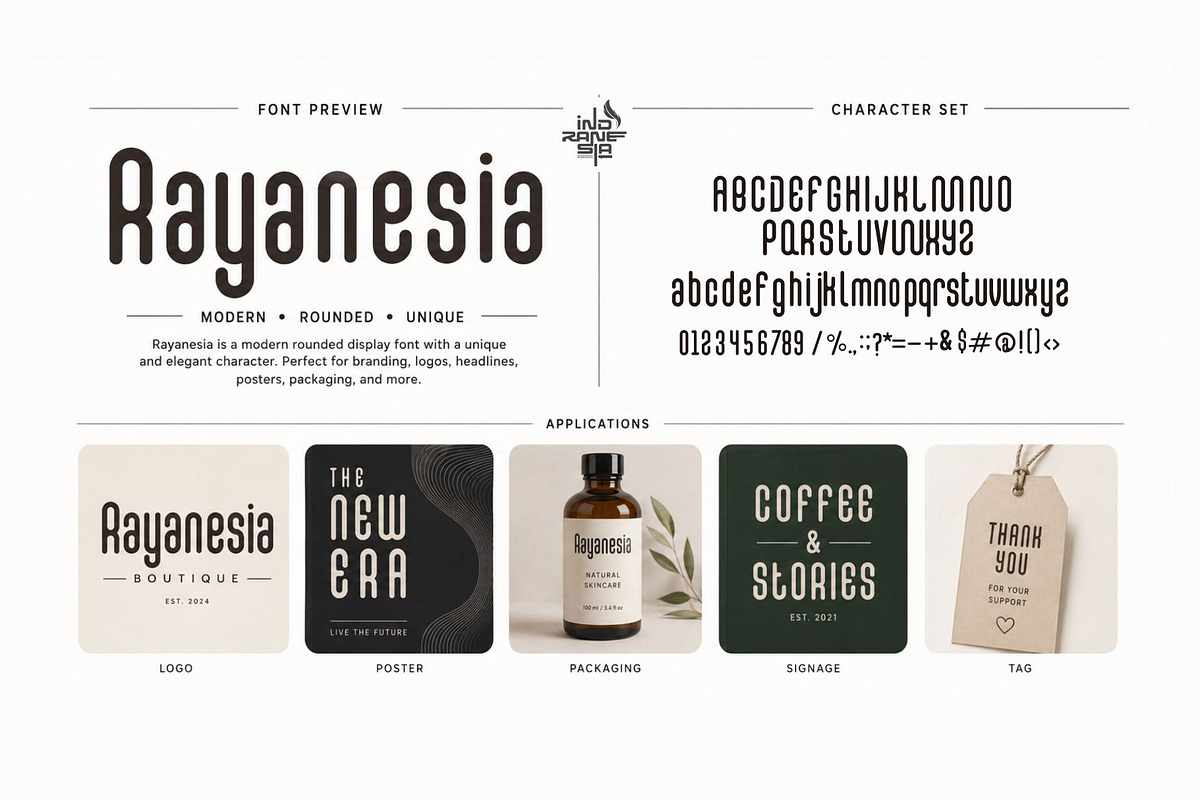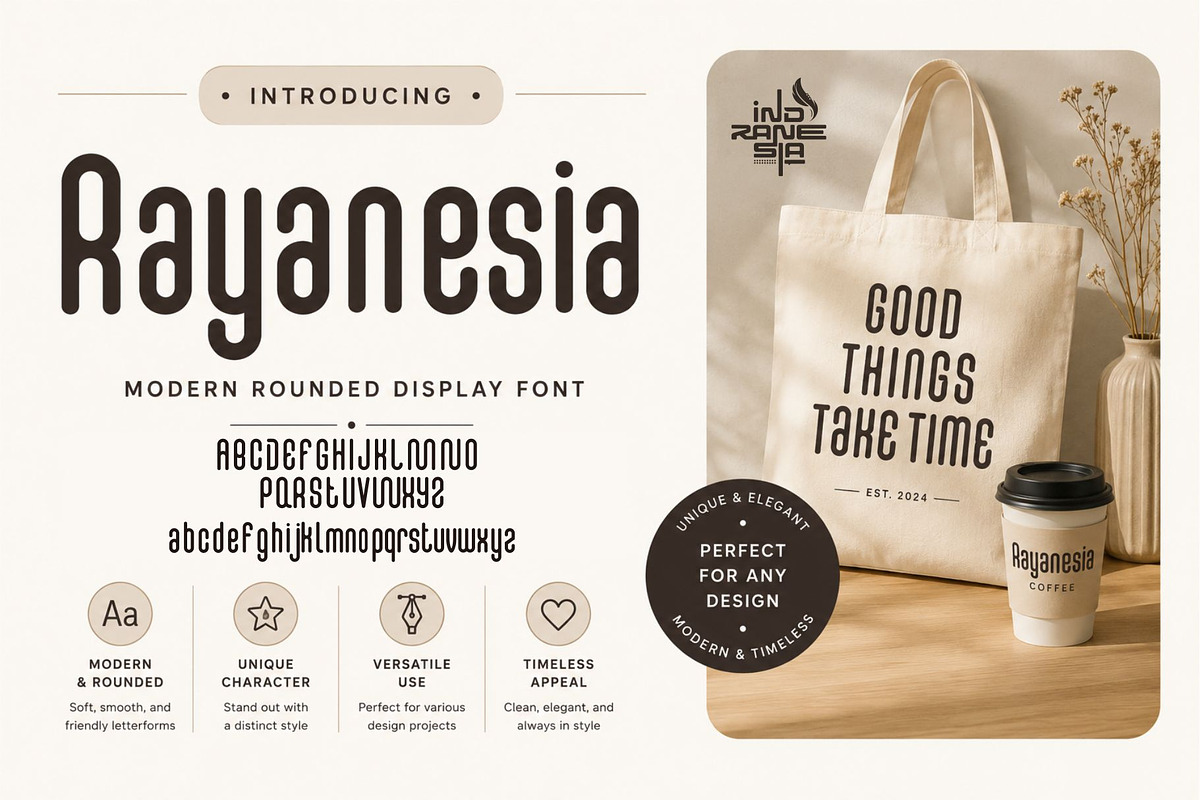
Rayanesia – Modern Rounded Font
Rayanesia is a modern rounded display font with a sleek, unique, and elegant personality. Designed with tall letterforms and smooth curves, this typeface brings a clean contemporary look while maintaining a soft aesthetic. Perfect for branding projects, logos, posters, packaging, café signage, fashion labels, social media graphics, and editorial headlines.
Its minimalist yet stylish appearance makes Rayanesia highly versatile for both luxury and modern creative designs. Whether you want a professional branding look or a trendy visual identity, this font delivers a strong and memorable impression.
Uppercase & lowercase letters
Clean rounded style
Modern minimalist aesthetic
Perfect for branding & display use
Best For:
Logos
Branding
Posters
Packaging
Fashion Design
Café & Restaurant Signage
Social Media Templates
Magazine Headlines
Product Labels